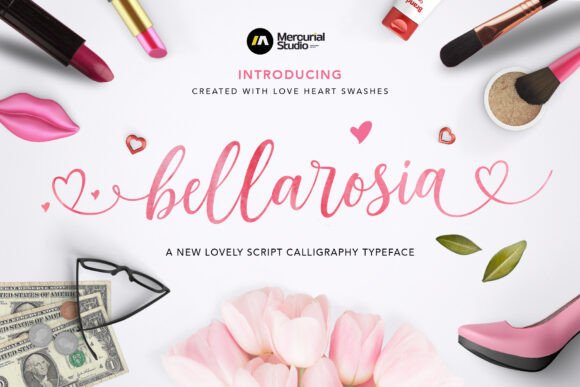
Bellarosia Font: The Ultimate Choice for Romantic and Charming Designs
In the world of typography, few fonts have managed to capture the essence of romance and charm as effectively as Bellarosia. This beautiful script calligraphy typeface is designed with love and adorned with heart-shaped swashes, making it the perfect choice for a wide range of design projects that require a touch of elegance and sweetness. In this article, we’ll take a closer look at Bellarosia font, its features, and how it can be used to create stunning designs that feel personal and heartfelt.
What is Bellarosia Font?
Bellarosia is a romantic and charming script calligraphy typeface designed with love and adorned with heart-shaped swashes. Its graceful curves and delicate strokes make it perfect for wedding invitations, love letters, branding, feminine designs, and special occasion projects. The font is crafted with precision and attention to detail, ensuring that every letter and swash is a masterpiece of elegance and sophistication.
Key Features of Bellarosia Font
- Romantic and Charming Design: Bellarosia font is designed to evoke feelings of love and romance. Its elegant curves and heart-shaped swashes make it perfect for designs that require a touch of whimsy and charm.
- Graceful Curves and Delicate Strokes: The font features gentle curves and delicate strokes that give it a feminine and elegant feel.
- Heart-Shaped Swashes: The heart-shaped swashes add a touch of romance and playfulness to the font, making it perfect for wedding invitations, love letters, and other special occasion projects.
- Perfect for Feminine Designs: Bellarosia font is ideal for feminine designs, including branding, packaging, and marketing materials.
Use Cases for Bellarosia Font
Bellarosia font is a versatile typeface that can be used for a wide range of design projects. Here are some of the most popular use cases:
- Wedding Invitations: The font’s romantic and charming design makes it perfect for wedding invitations, save-the-date cards, and other wedding-related materials.
- Love Letters and Correspondence: Bellarosia font is ideal for love letters, Valentine’s Day cards, and other romantic correspondence.
- Branding and Packaging: The font’s elegant and sophisticated design makes it perfect for branding and packaging projects that require a touch of femininity and elegance.
- Feminine Designs: Bellarosia font is ideal for feminine designs, including beauty and cosmetics branding, fashion marketing materials, and lifestyle blogs.
- Special Occasion Projects: The font’s romantic and charming design makes it perfect for special occasion projects, including birthday cards, anniversary gifts, and other celebrations.
Benefits of Using Bellarosia Font
Using Bellarosia font in your design projects offers a range of benefits, including:
- Unique and Memorable Designs: The font’s romantic and charming design ensures that your designs stand out and are memorable.
- Elegance and Sophistication: Bellarosia font adds a touch of elegance and sophistication to your designs, making them perfect for high-end branding and marketing projects.
- Emotional Connection: The font’s emotional and heartfelt design helps create an emotional connection with your audience, making your designs more relatable and engaging.
- Versatility: Bellarosia font is a versatile typeface that can be used for a wide range of design projects, from wedding invitations to branding and packaging.
Tips for Using Bellarosia Font
Here are some tips for using Bellarosia font in your design projects:
- Pair with Neutral Colors: Pair Bellarosia font with neutral colors like white, beige, or pastel shades to create a romantic and elegant look.
- Use Heart-Shaped Swashes: Use the heart-shaped swashes to add a touch of whimsy and romance to your designs.
- Experiment with Font Sizes: Experiment with different font sizes to create visual interest and hierarchy in your designs.
- Add Decorative Elements: Add decorative elements like flowers, lace, or ribbons to create a more feminine and elegant look.
Bellarosia font is a romantic and charming script calligraphy typeface that is perfect for designs that require a touch of elegance and sweetness. Its graceful curves, delicate strokes, and heart-shaped swashes make it ideal for wedding invitations, love letters, branding, feminine designs, and special occasion projects. With its versatility, emotional connection, and unique design, Bellarosia font is a great choice for designers looking to create memorable and engaging designs.
- What is Bellarosia font?: Bellarosia font is a romantic and charming script calligraphy typeface designed with love and adorned with heart-shaped swashes.
- What is Bellarosia font used for?: Bellarosia font is used for wedding invitations, love letters, branding, feminine designs, and special occasion projects.